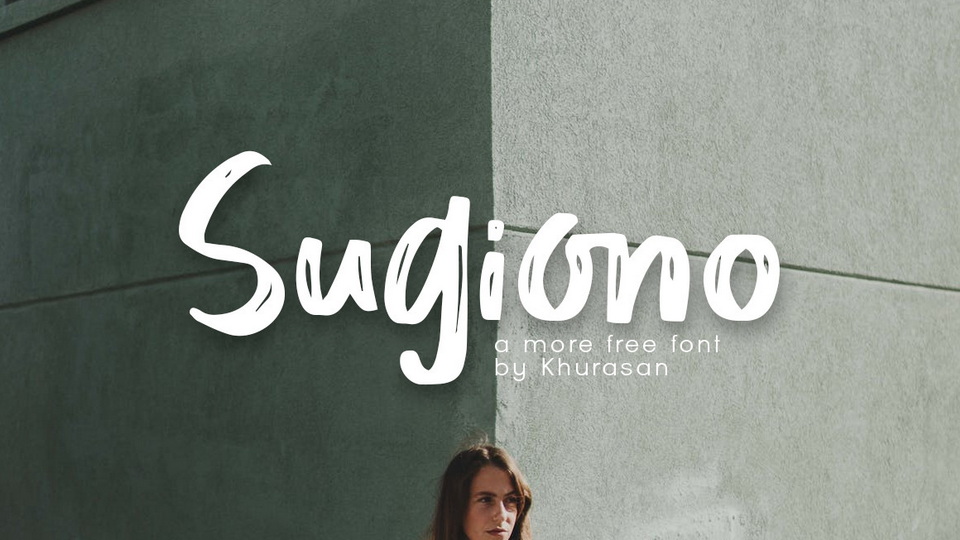
Download Sugiono font, a simple handwritten typeface with a brushy look. Sugiono is perfect for posters, logos, magazines, cover books, banners, and much more.